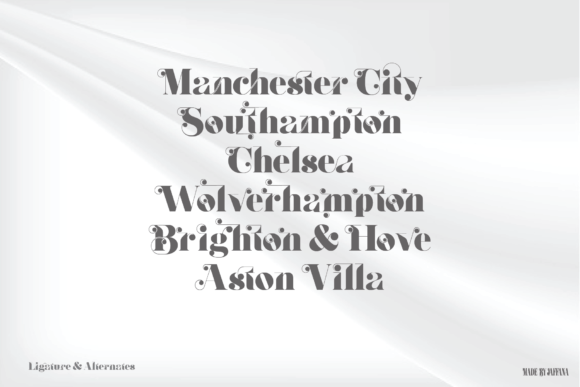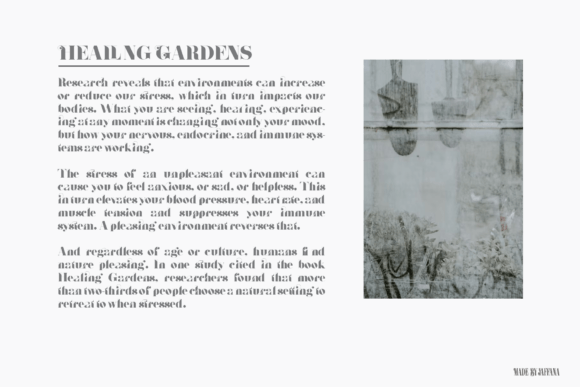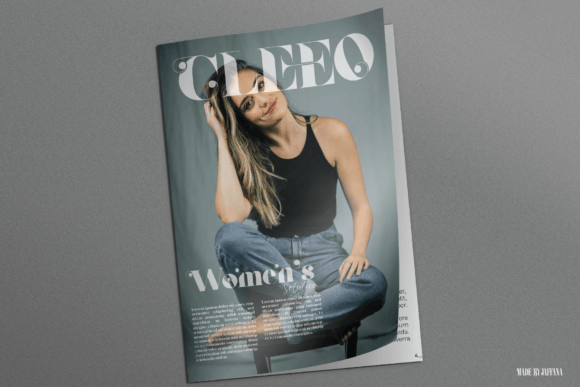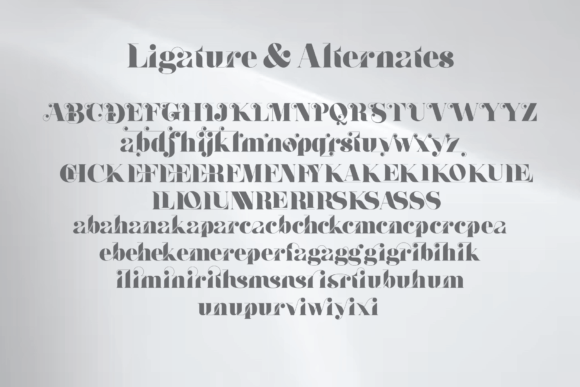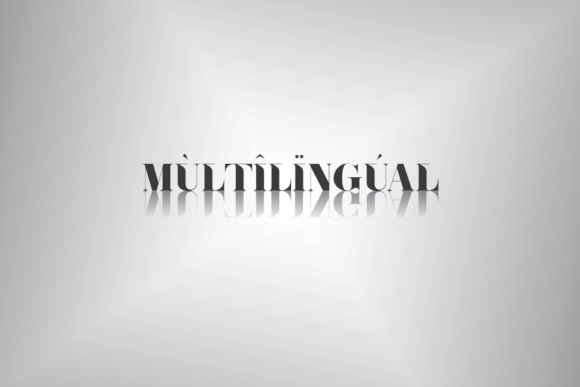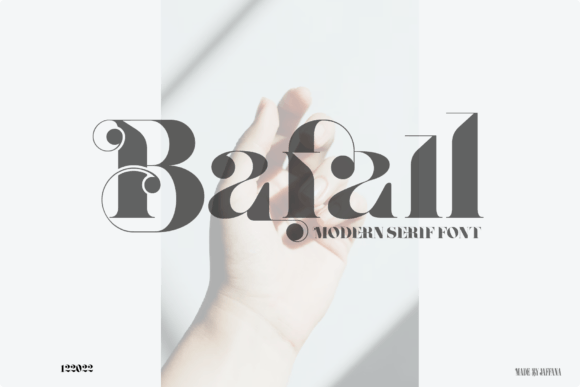
Bafall Font: Elevate Your Creative Projects with a Modern Serif Twist
In the world of typography, fonts play a crucial role in conveying the tone and personality of a brand or creative project. For crafters, graphic artists, and designers, finding the perfect font can be a daunting task. However, if you’re looking for a fun, modern, and versatile serif font, look no further than Bafall. In this article, we’ll dive into the features and benefits of Bafall Font, and explore how it can elevate your creative projects.
What is Bafall Font?
Bafall is a modern serif font that boasts a lightweight feel, making it perfect for a wide range of creative applications. Its unique design combines the classic elegance of serif fonts with a fresh, contemporary twist. The result is a font that is both sophisticated and approachable, making it ideal for designers and crafters looking to add a touch of personality to their work.
Key Features of Bafall Font
- Modern Serif Design: Bafall’s serif design is both classic and modern, making it perfect for projects that require a touch of sophistication.
- Lightweight Feel: The font’s lightweight feel ensures that it remains easy to read, even at smaller sizes.
- Fun and Versatile: Bafall’s unique design makes it perfect for a wide range of creative projects, from craft projects to graphic design.
Who is Bafall Font Perfect for?
Bafall Font is perfect for crafters, graphic artists, and designers who are looking for a fun and modern serif font to elevate their creative projects. Whether you’re working on a DIY craft project, designing a brand identity, or creating a poster, Bafall Font is a great choice.
Use Cases for Bafall Font
- Creative Projects: Bafall Font is perfect for a wide range of creative projects, including craft projects, scrapbooking, and DIY tutorials.
- Graphic Design: The font’s modern serif design makes it perfect for graphic design projects, including brochures, flyers, and posters.
- Branding and Identity: Bafall Font can be used to create a unique and memorable brand identity, including logos, business cards, and letterheads.
- Cover Posters: The font’s bold and playful design makes it perfect for creating eye-catching cover posters for books, magazines, and other publications.
Tips for Using Bafall Font
- Experiment with Font Sizes: Bafall Font looks great at a wide range of font sizes, so don’t be afraid to experiment to find the perfect size for your project.
- Pair with Other Fonts: Bafall Font pairs well with a wide range of fonts, so try pairing it with other fonts to create a unique and interesting look.
- Use for Headings and Titles: Bafall Font is perfect for headings and titles, where its bold and playful design can really shine.
| Font Name | Bafall Font |
| Author | Jaffana co. |
In conclusion, Bafall Font is a fun and modern serif font that is perfect for crafters, graphic artists, and designers looking to elevate their creative projects. With its lightweight feel, versatile design, and wide range of use cases, Bafall Font is a great choice for anyone looking to add a touch of personality to their work. So why not give Bafall Font a try today and see how it can help take your creative projects to the next level?